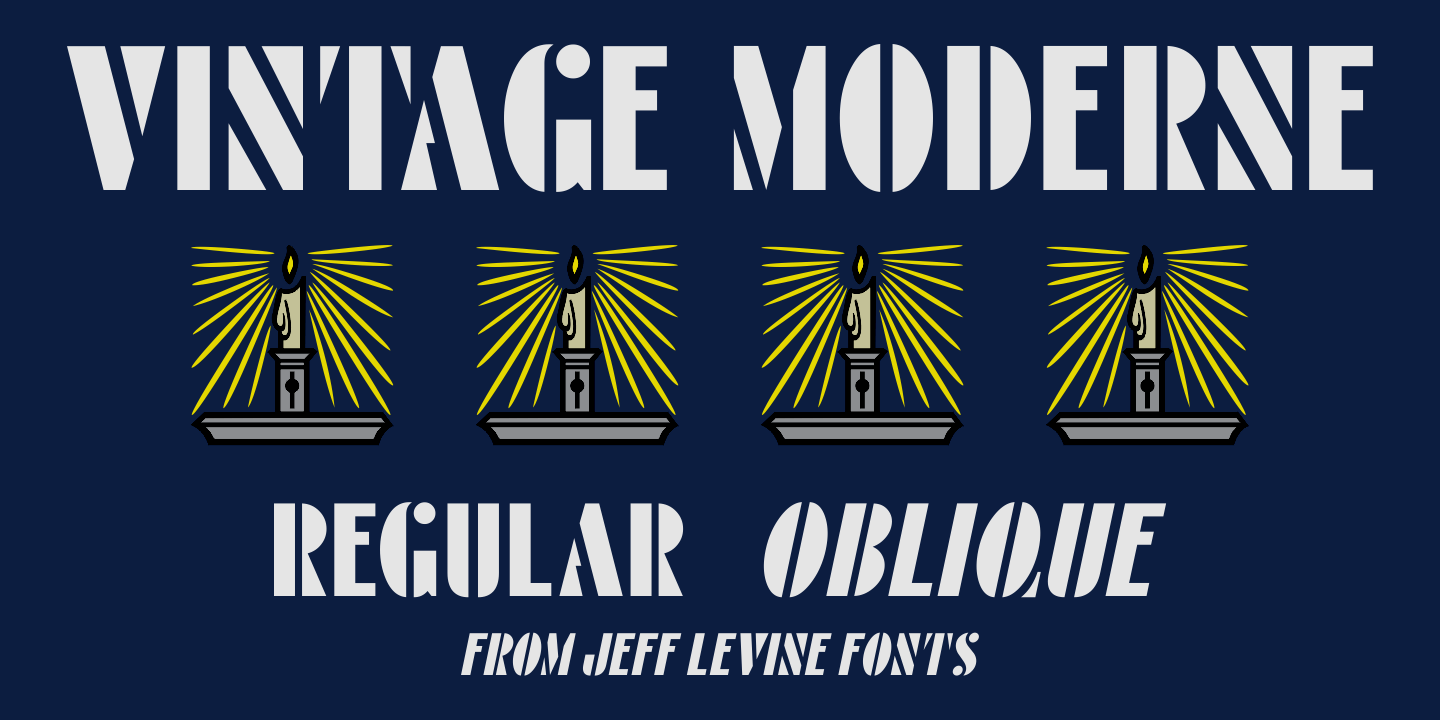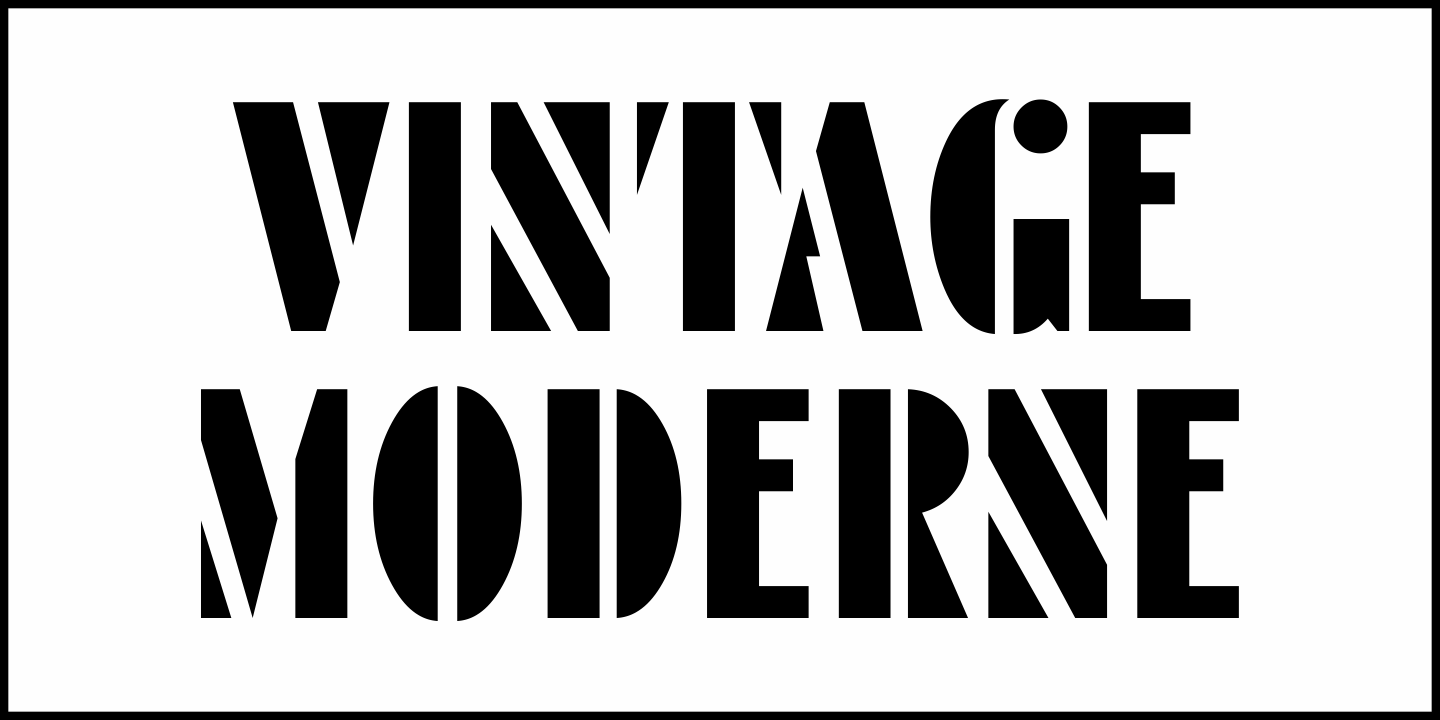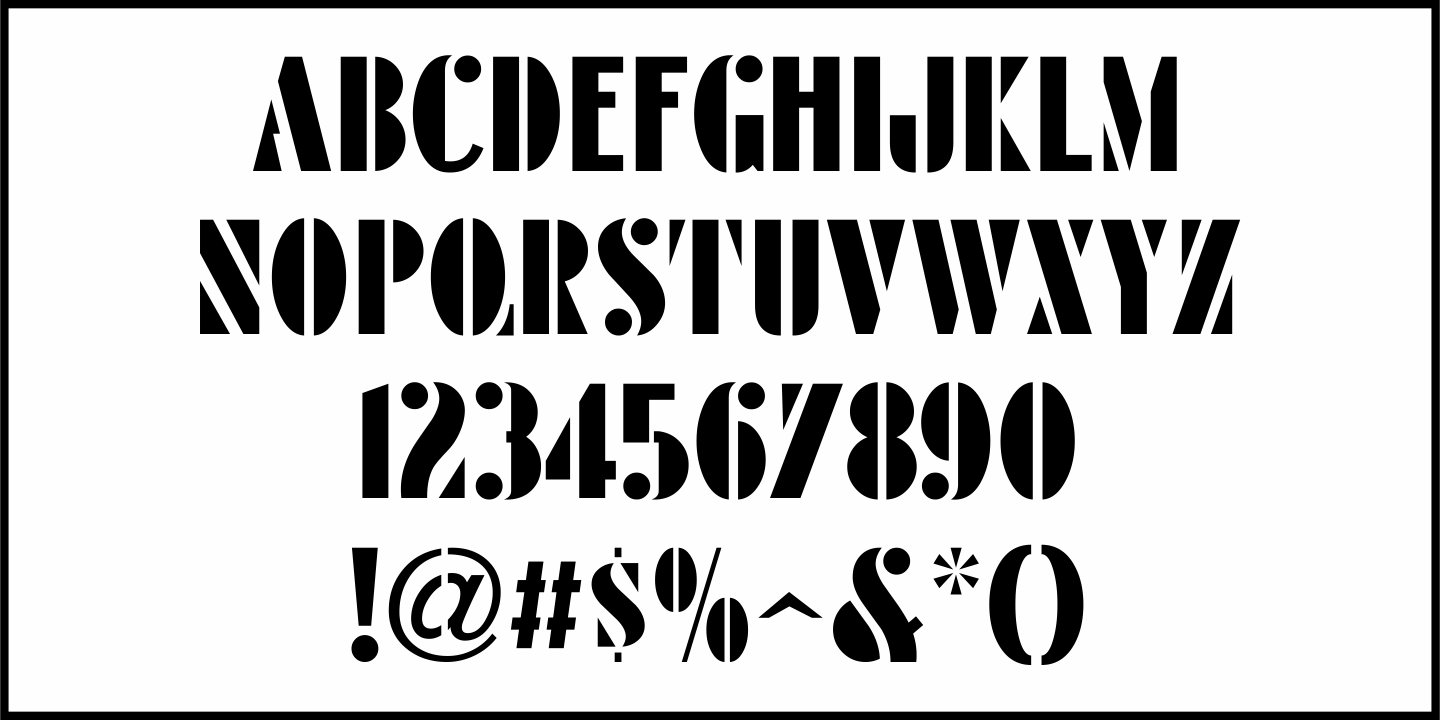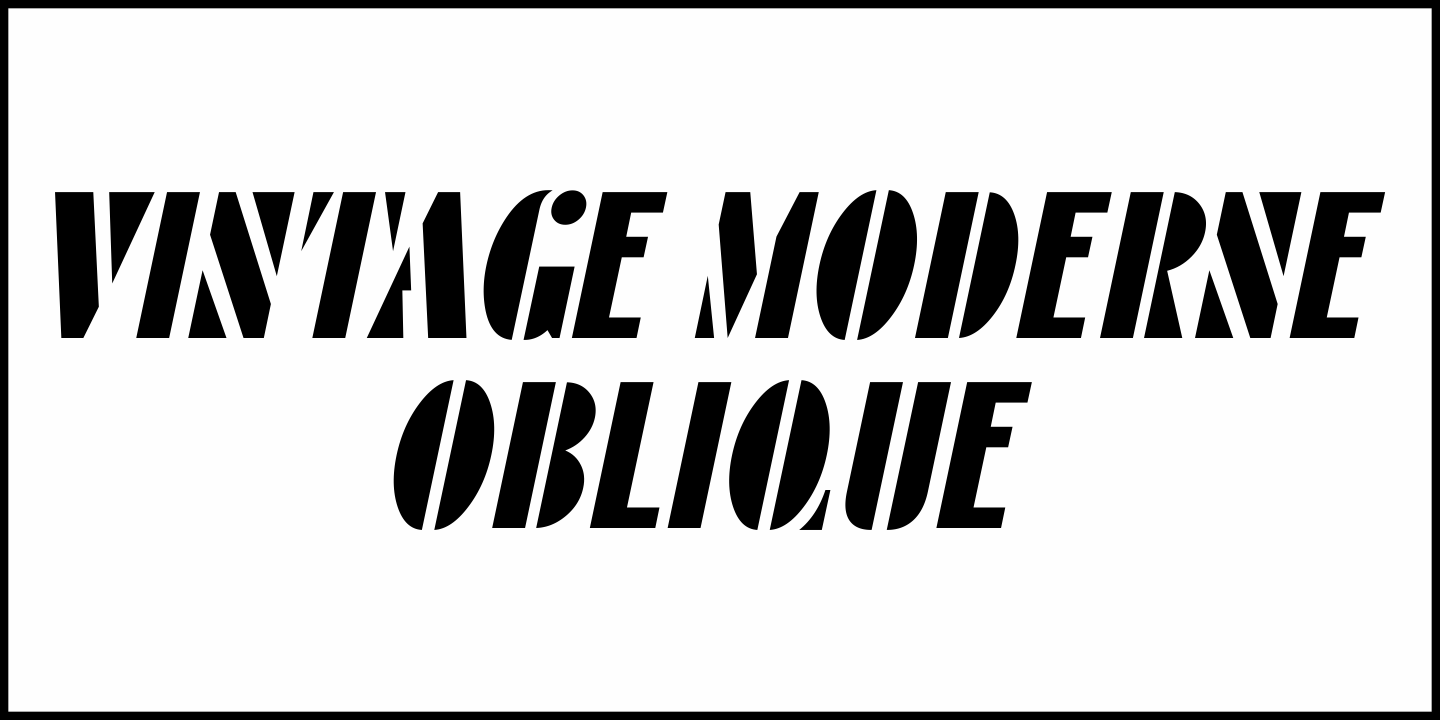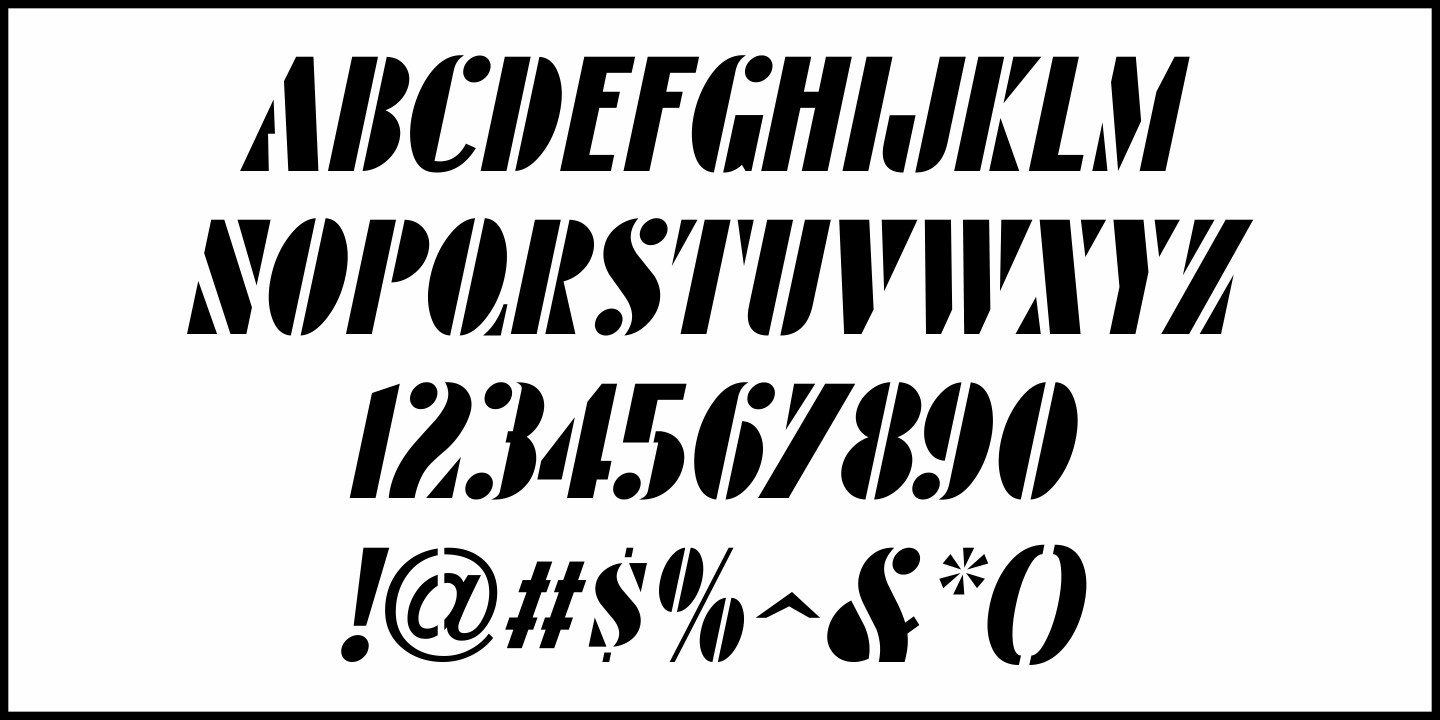
Vintage Moderne JNL
Within the pages of a vintage Econasign catalog booklet from the UK were some sample characters from one of the many templates shopkeepers, schools and other organizations would use to make their own signs and posters.
The lettering style is a condensed derivation of Futura Black, a stencil-themed typeface found just about everywhere during the Art Deco era and beyond.
This served as the model for Vintage Moderne JNL, which is available in both regular and oblique versions.